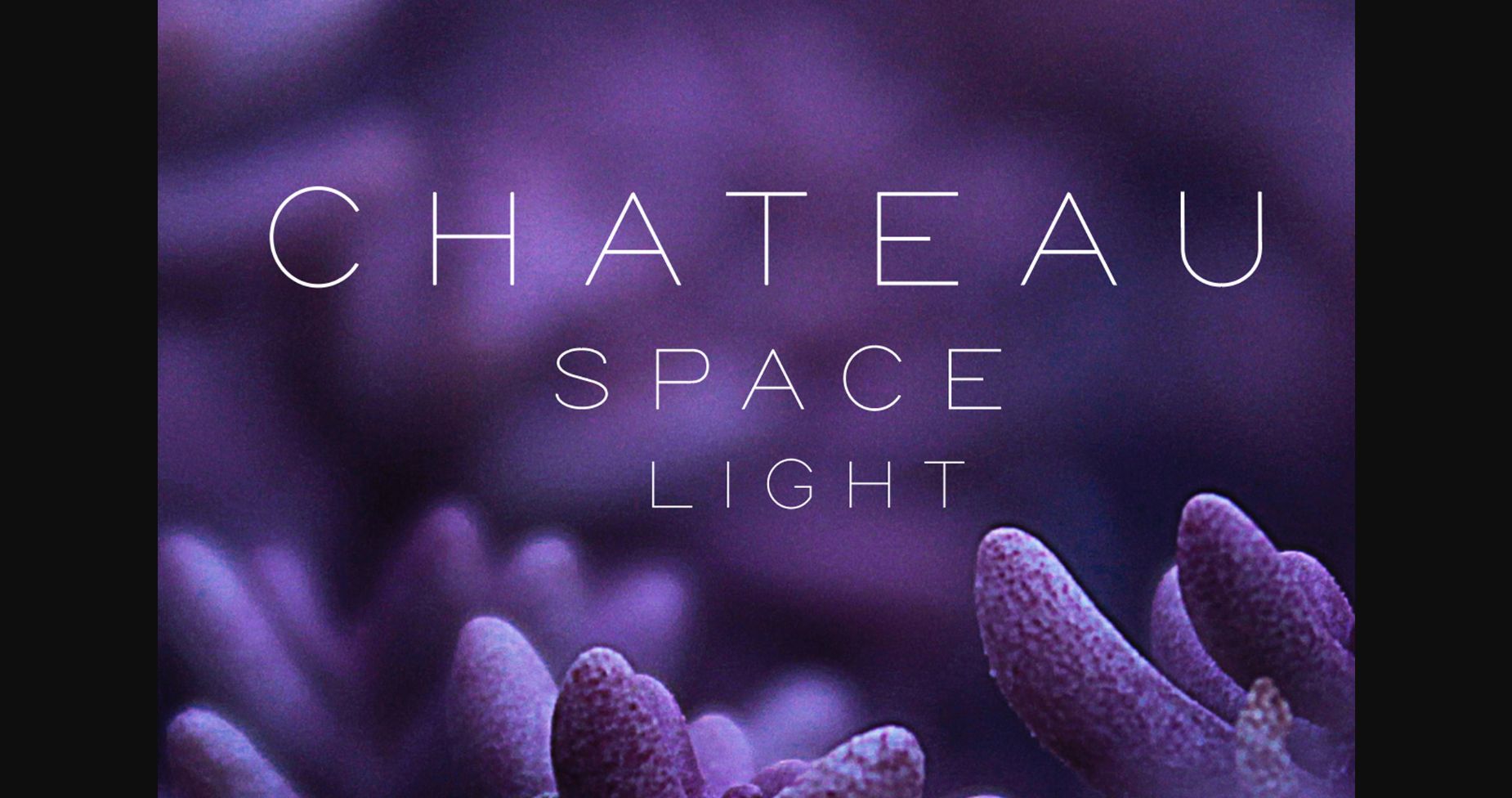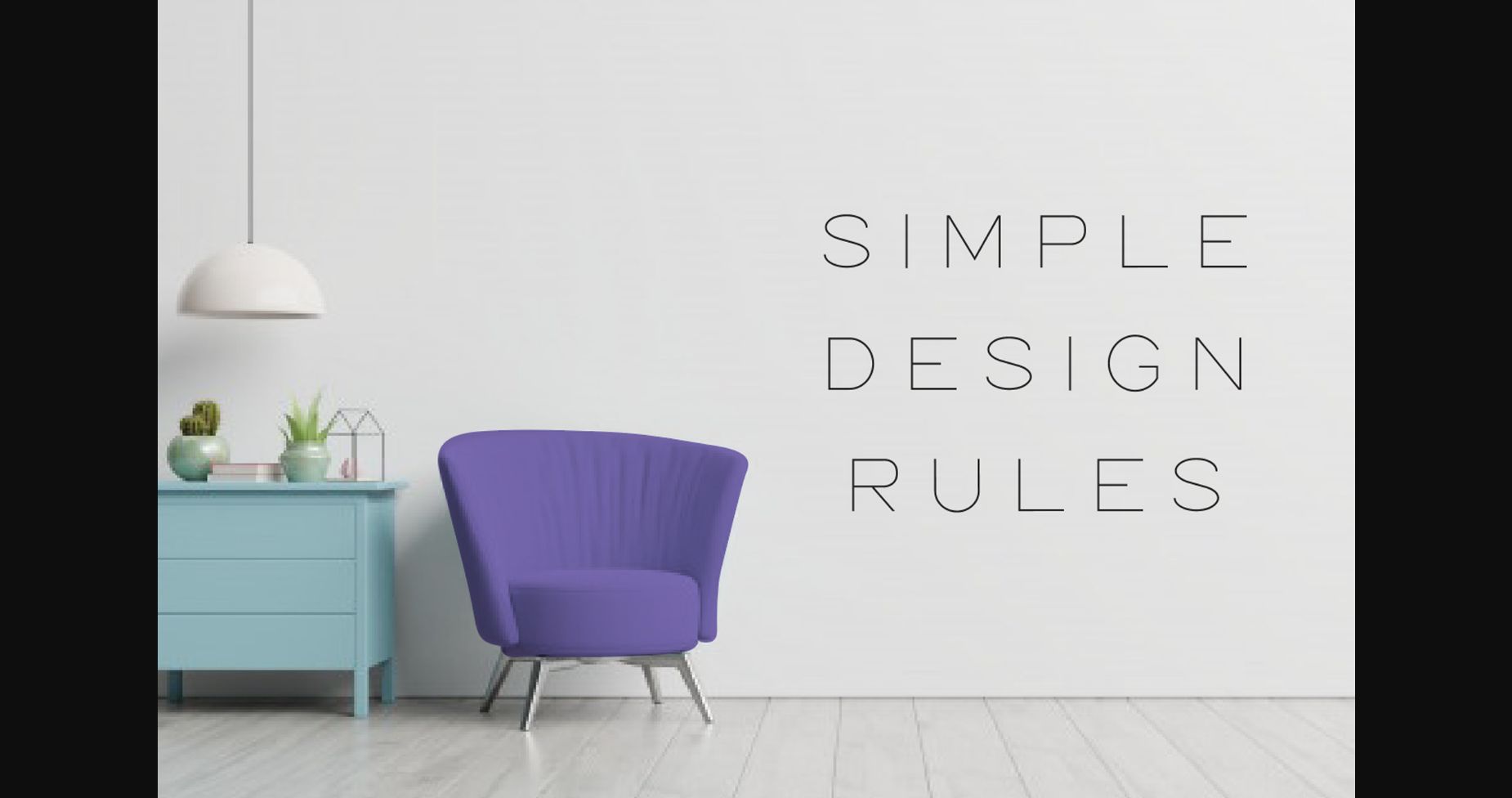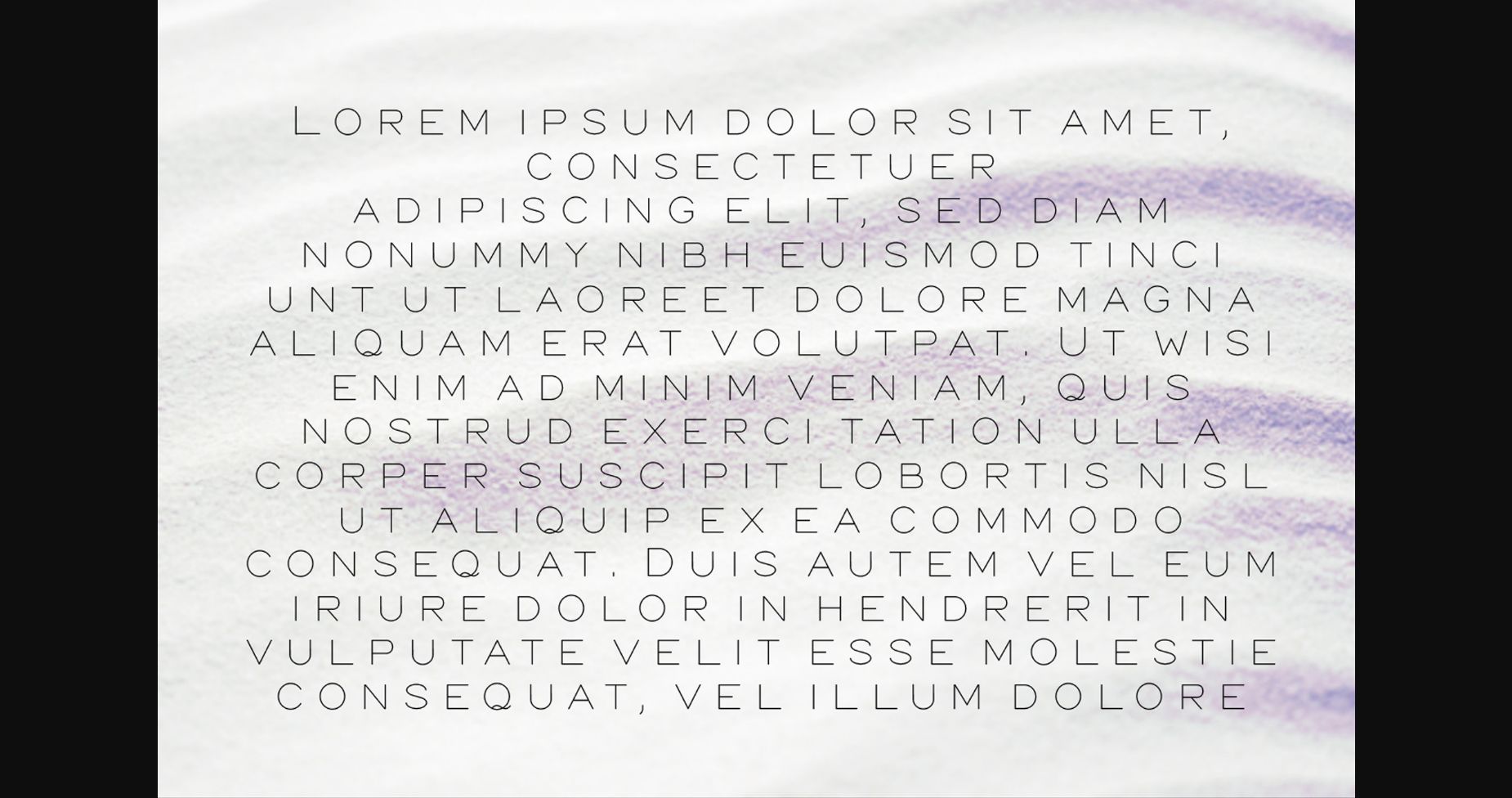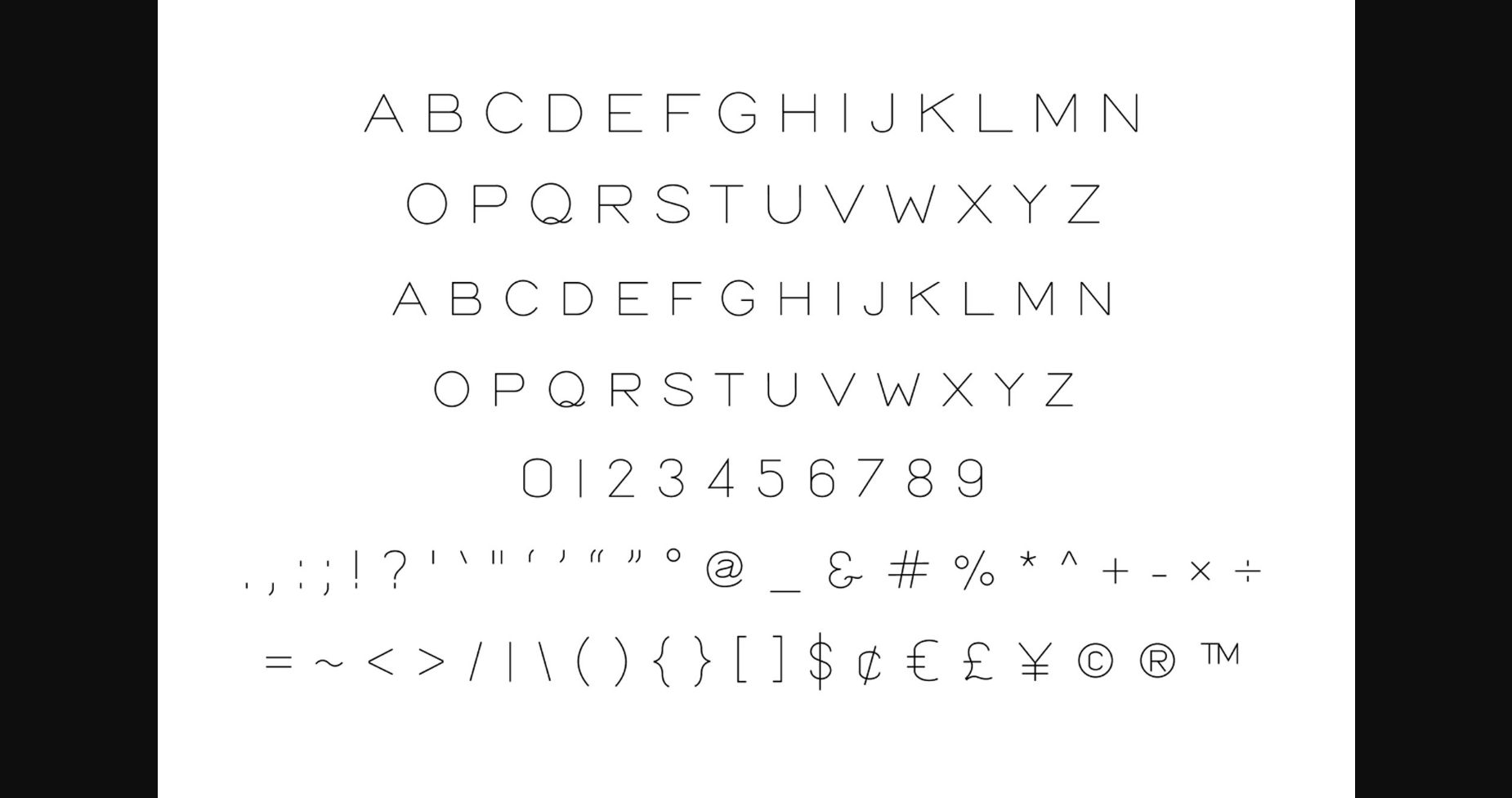
Chateau Space Light Font
About Chateau Space Light Font
Chateau Space Light is a minimal and neat sans serif font. It can easily be matched to an incredibly large set of projects, so add it to your creative ideas and notice how it makes them stand out!